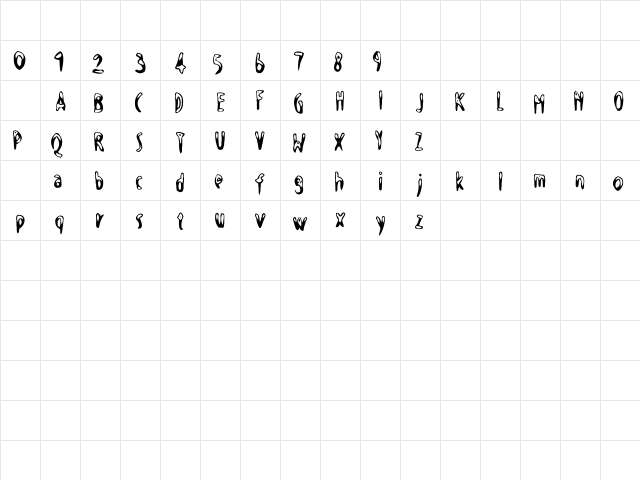
SnowFont is a composed and adaptable typeface that performs quietly and consistently across a wide range of design contexts.
Pro Tip: Use SnowFont in both headline and body roles to test its range before committing to a single application.